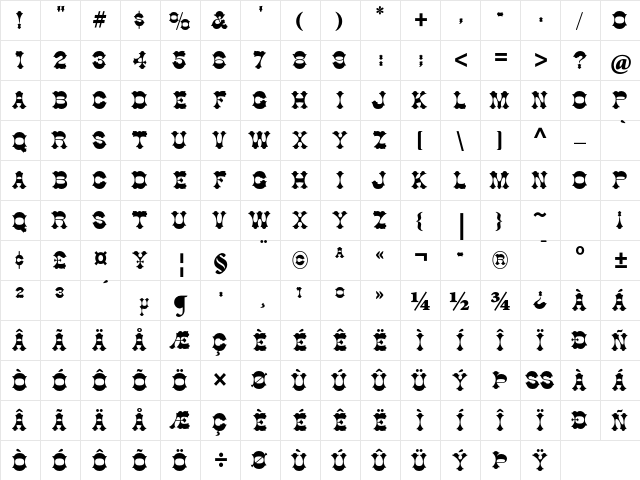
Cottonwood Std Medium Font Preview
Cottonwood Std Medium
Cottonwood Std Medium Font Details
| Designer | Barbara Lind, Kim Buker Chansler, Joy Redick |
Design Context for Cottonwood Std Typeface
Cottonwood Std taps into classic Western woodtype traditions — bold, characterful, and impossible to ignore.
Perfect for barbecue restaurants, country music branding, vintage poster design, and rustic packaging.
Font Pairing: Combine Cottonwood Std with a simple slab or neutral sans — period-accurate companions reinforce the vintage feel without competing for attention.
Pro Tip: Pair Cottonwood Std with aged textures or distressed backgrounds to amplify its vintage personality.